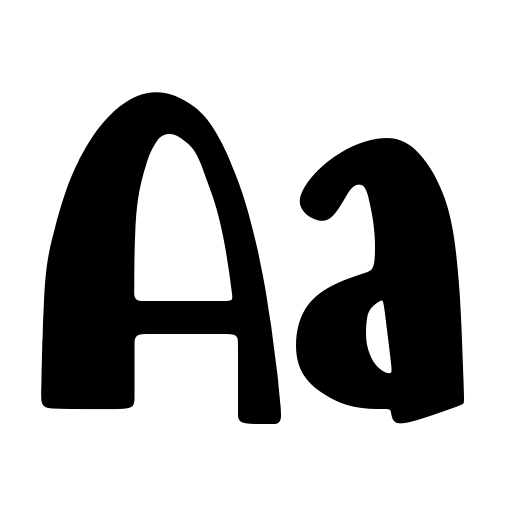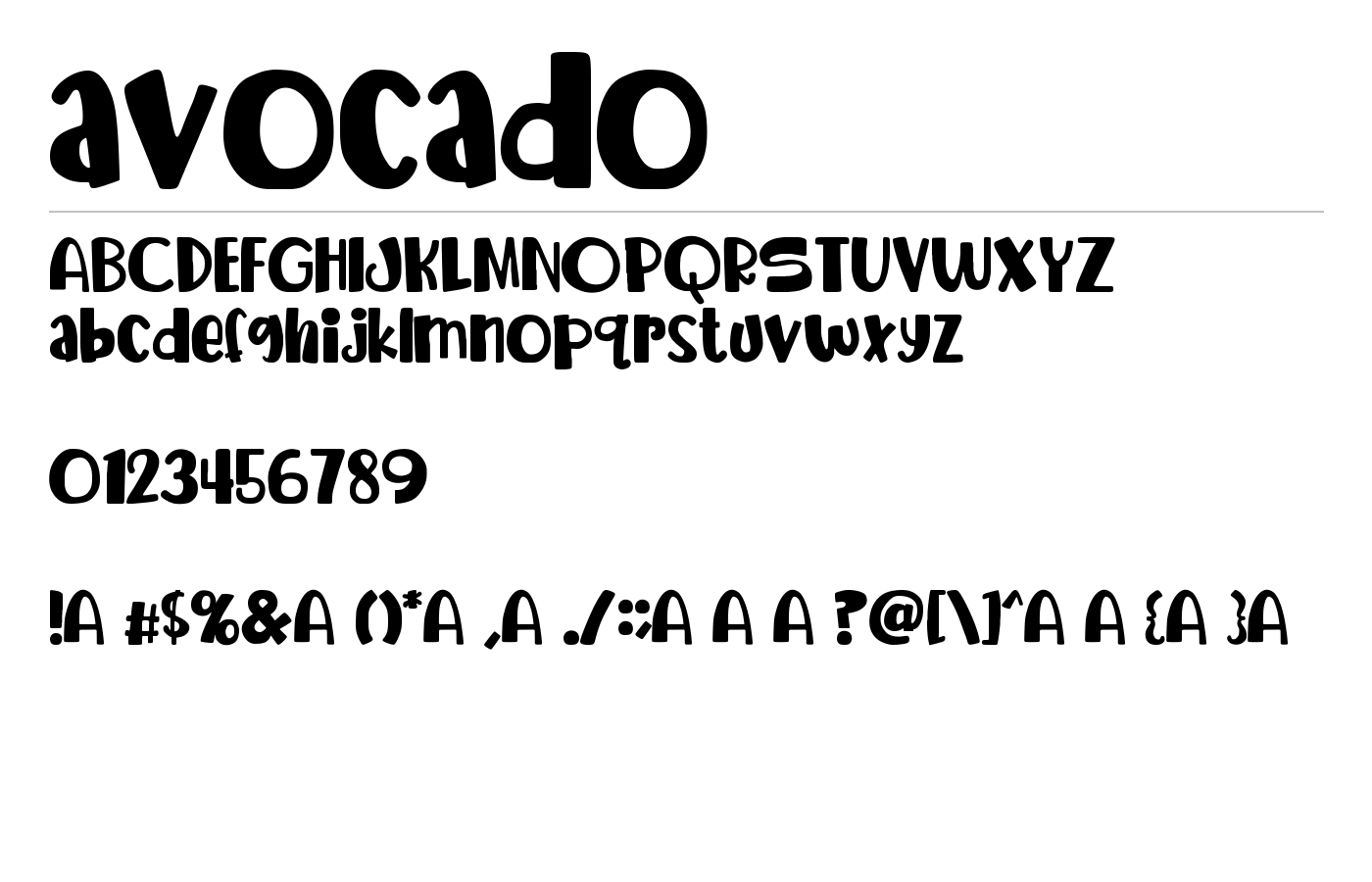
Avocado is a playful, bold sans serif font with a hand-drawn feel, featuring rounded, irregular shapes that give it a friendly and informal personality. Its uneven strokes and quirky letterforms make it perfect for creative projects, children’s content, and casual branding that seeks a fun, approachable vibe. This font works well in headlines, logos, and packaging where a unique, eye-catching style is desired.
avocado Font